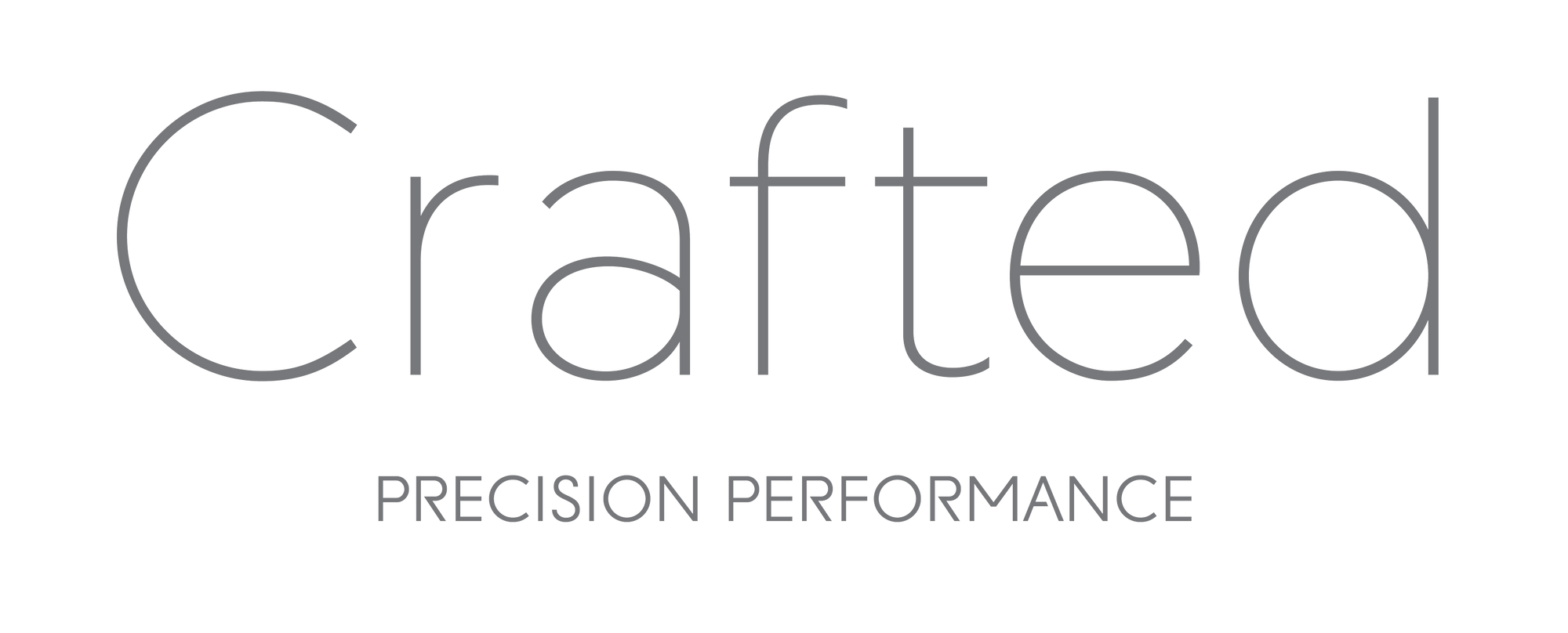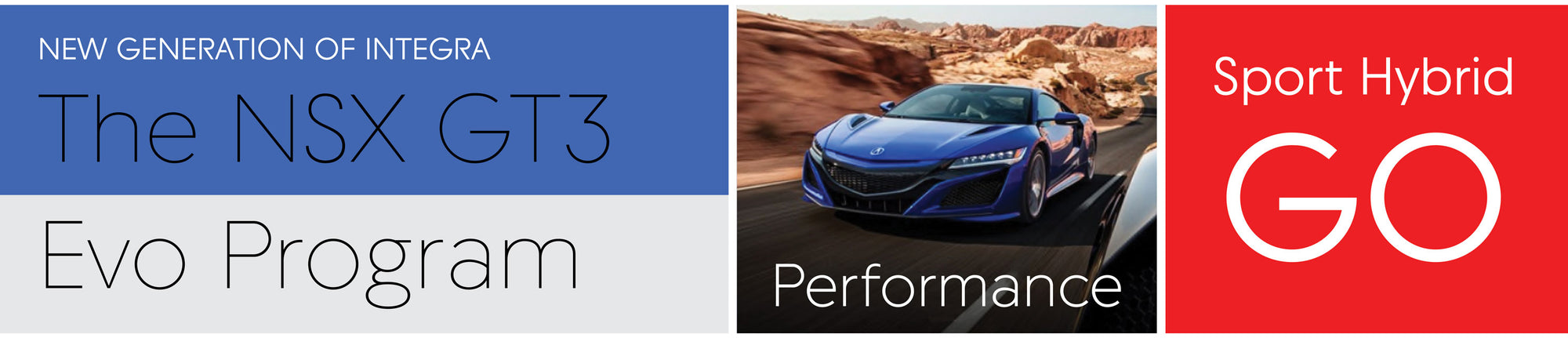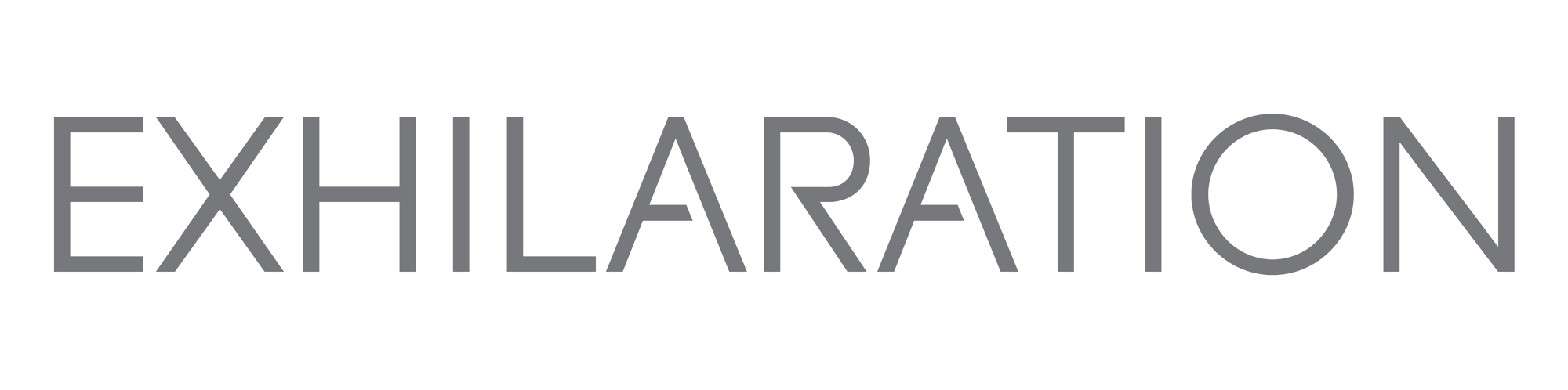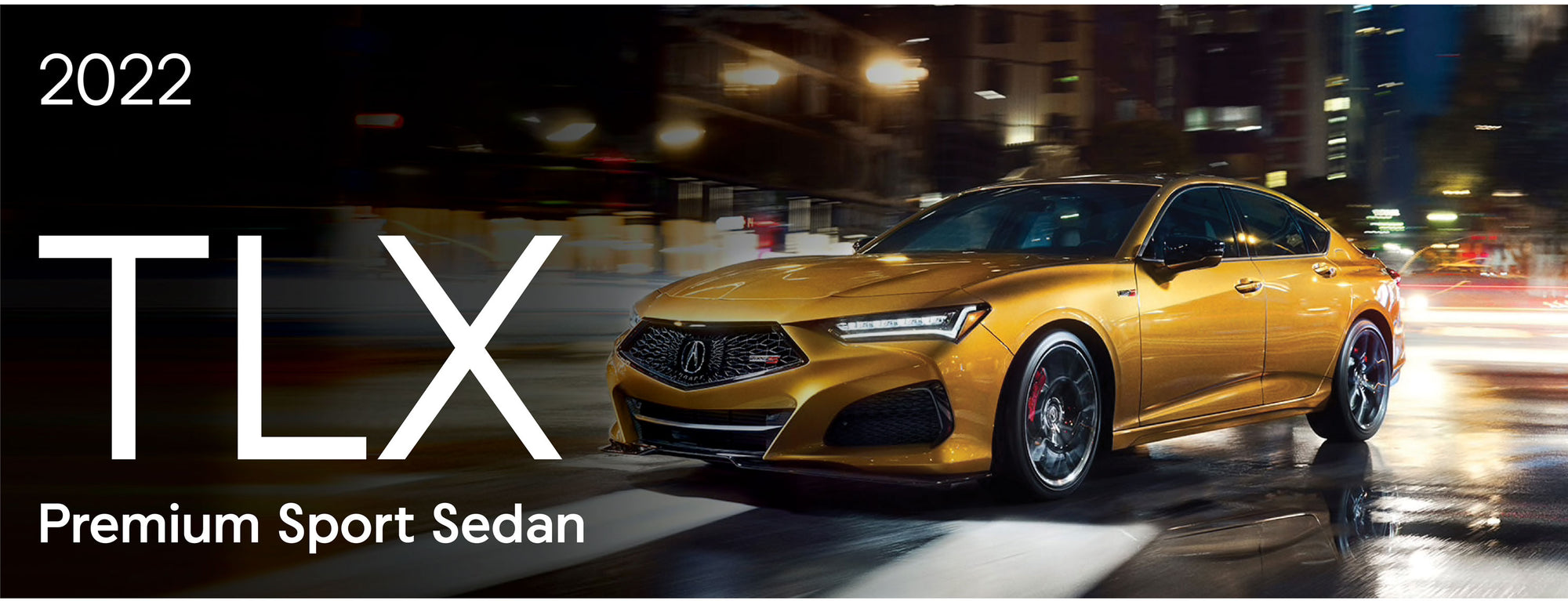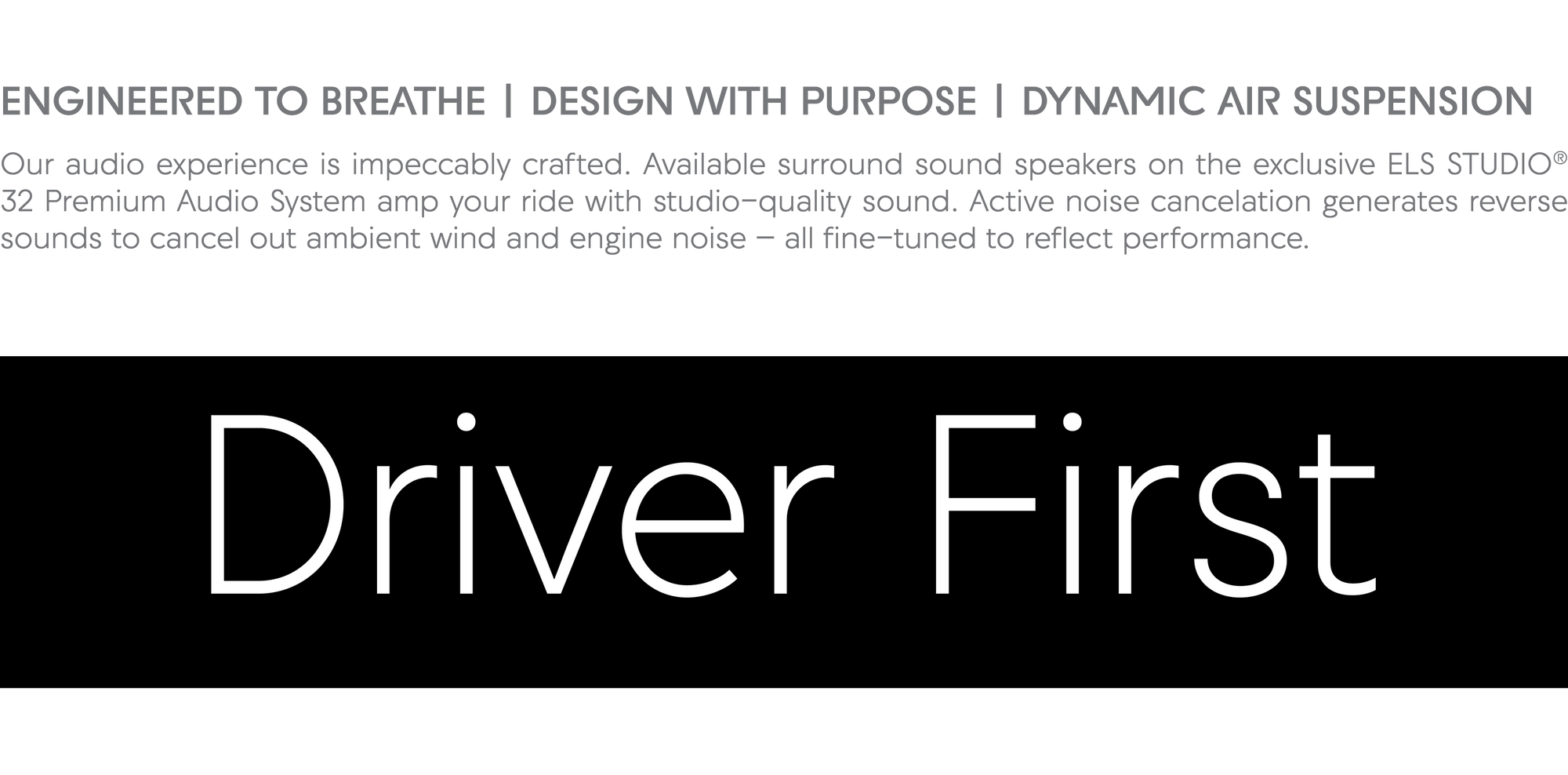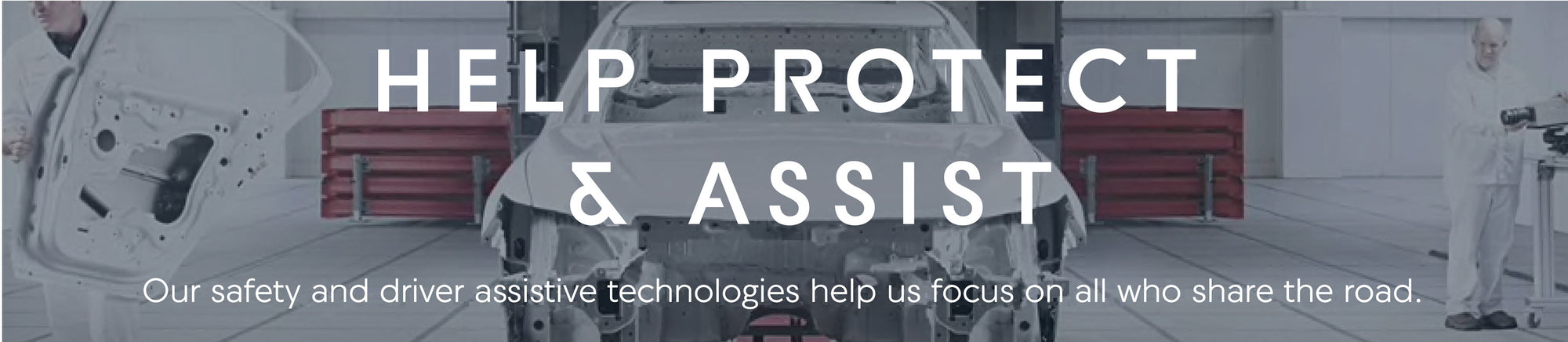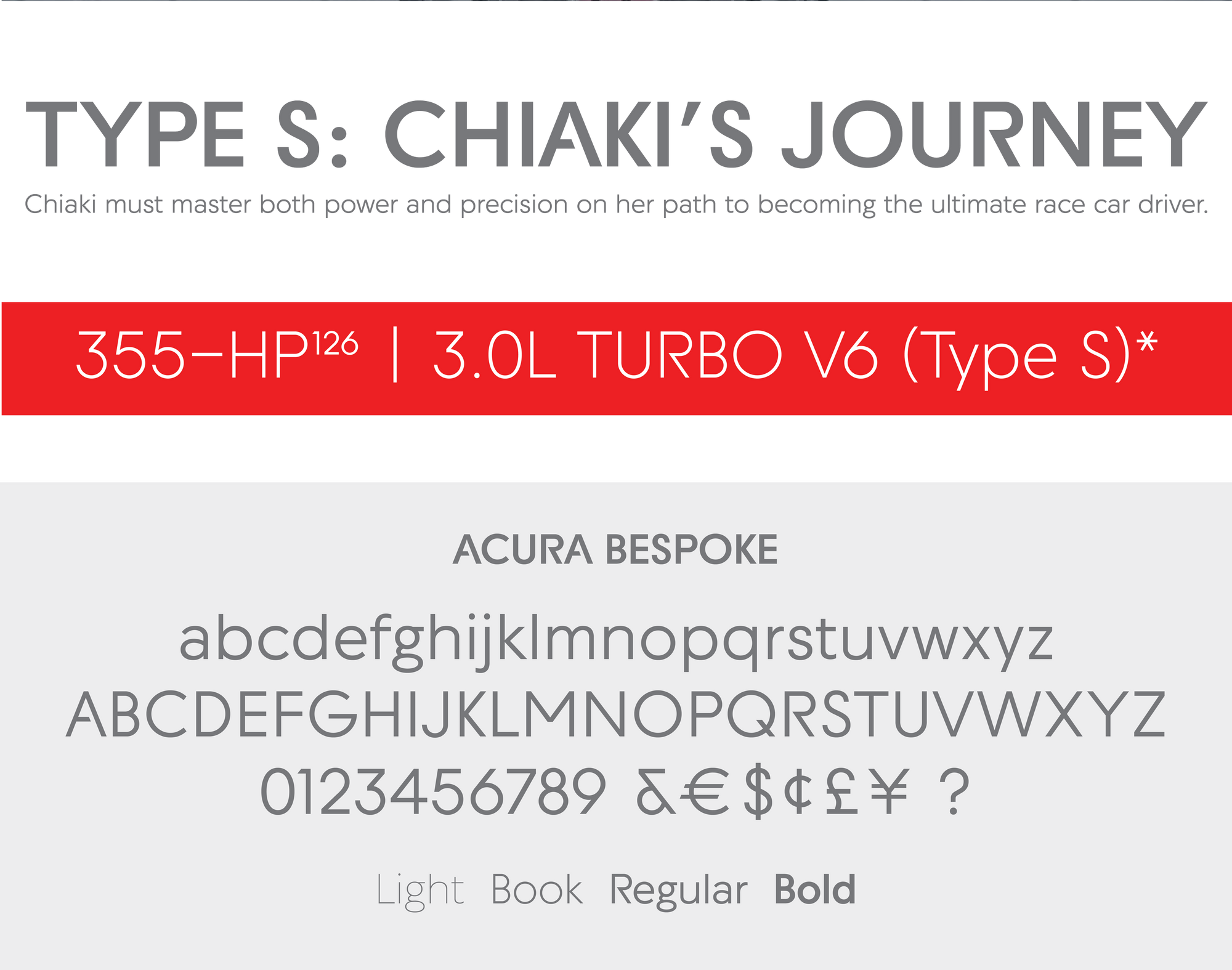
Acura Bespoke, Acura
The bespoke type family developed for Mullen was applied across platforms towards print, web and on air graphics to support the recent brand campaign for the Acura car company. The brand criteria called for a font that was expressive in appropriate areas while familiar and durable as well. The set spans a full range from thin to bold weights.